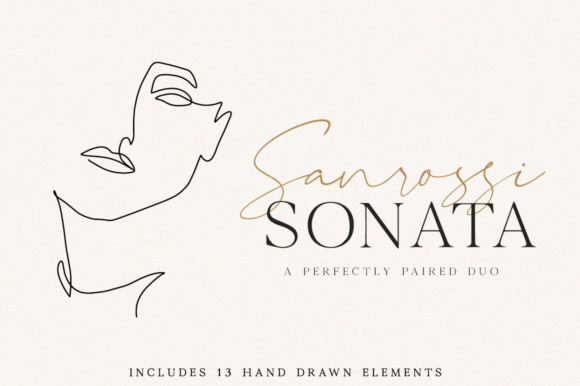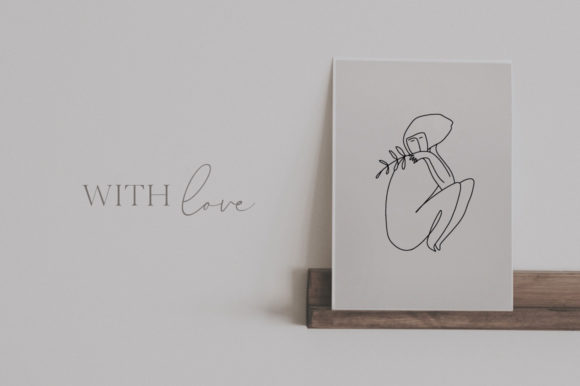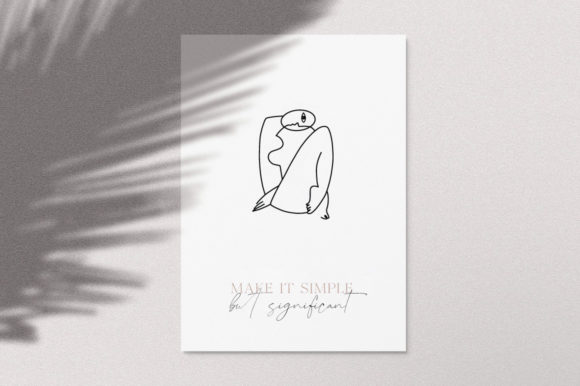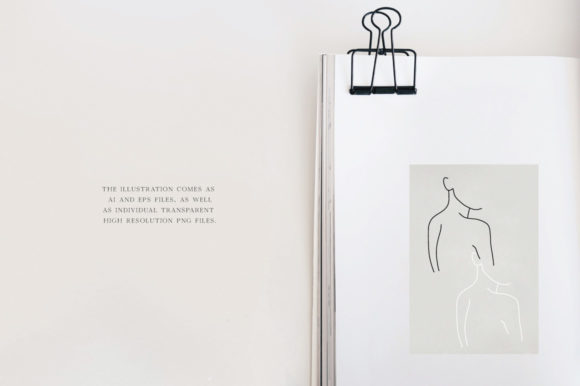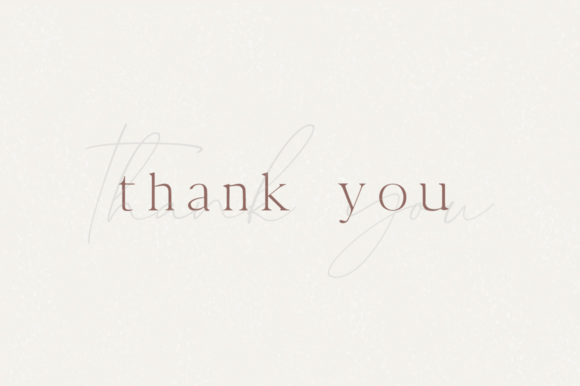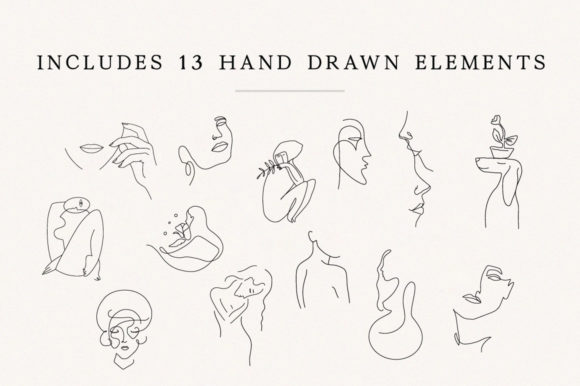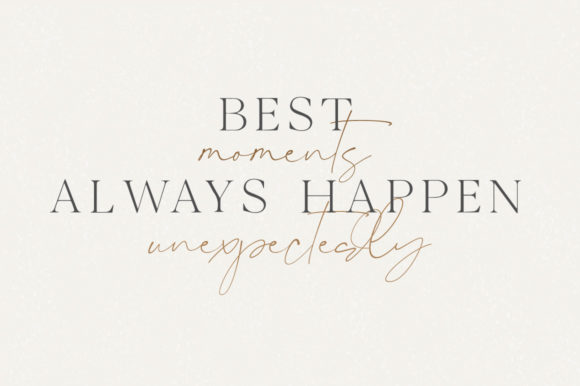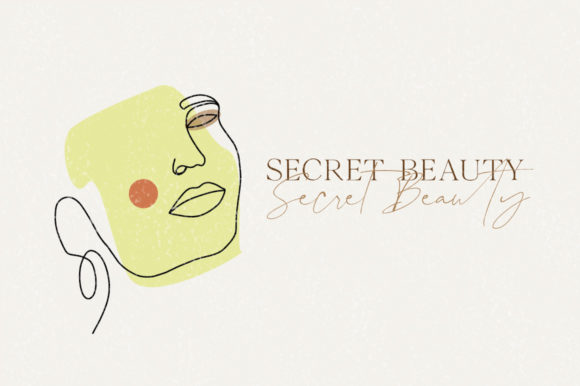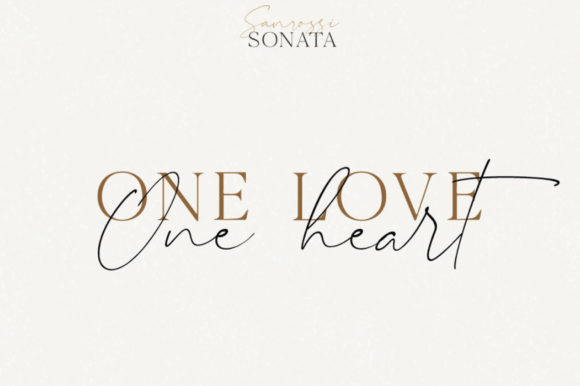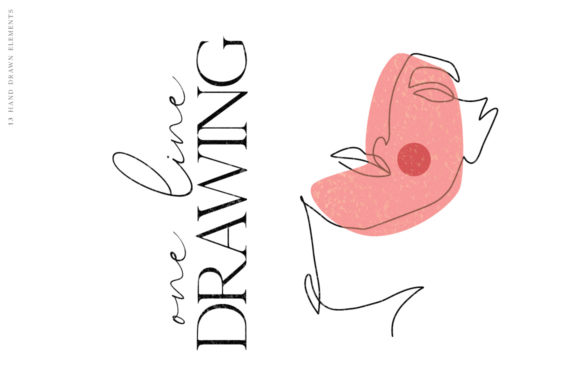
Sanrossi Sonata Duo Font
About Sanrossi Sonata Duo Font
Sanrossi Sonata Duo consists of a sophisticated signature-style script, and an elegant serif font. With impeccably refined curves and silky smooth edges, this font duo is perfect for adding a modern touch to your projects.